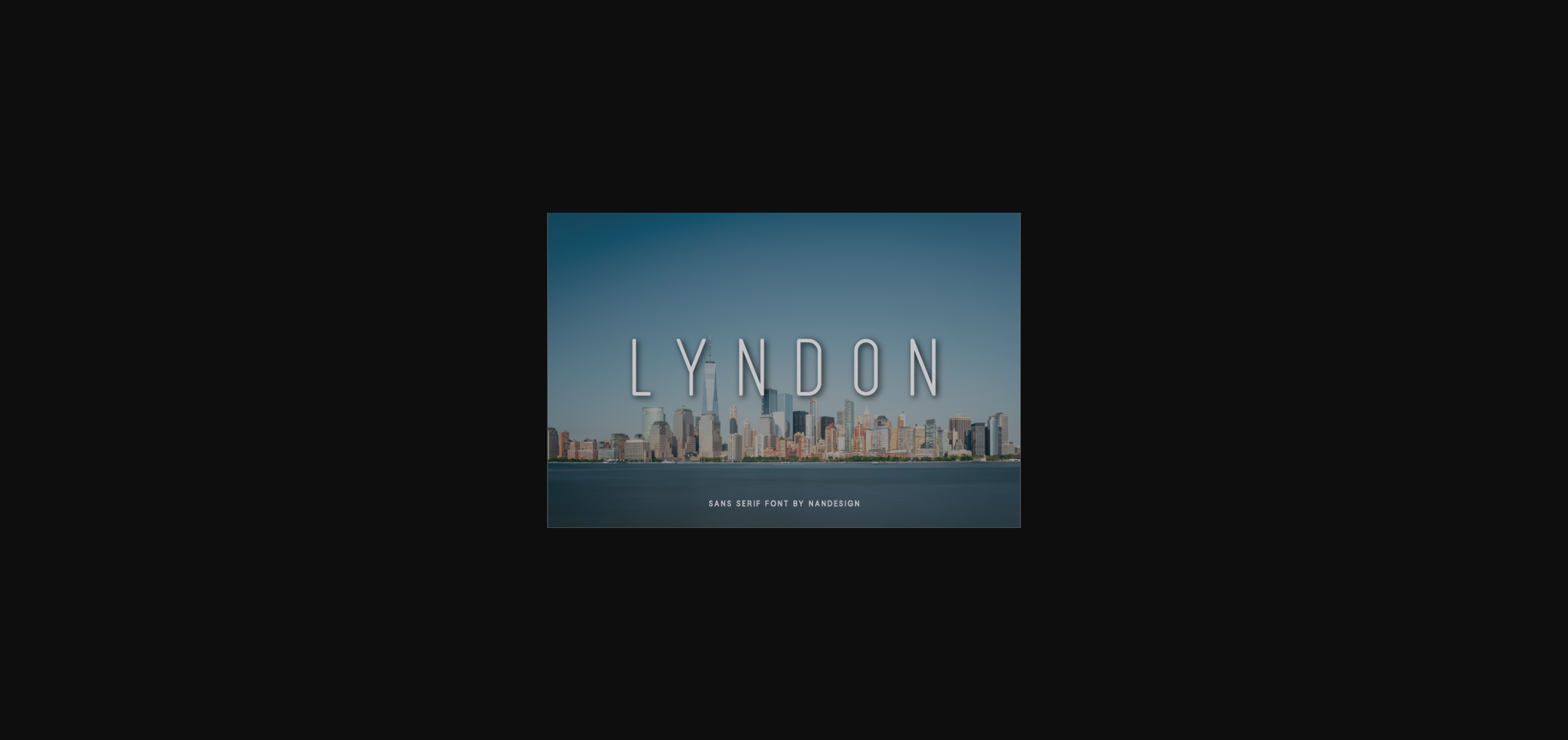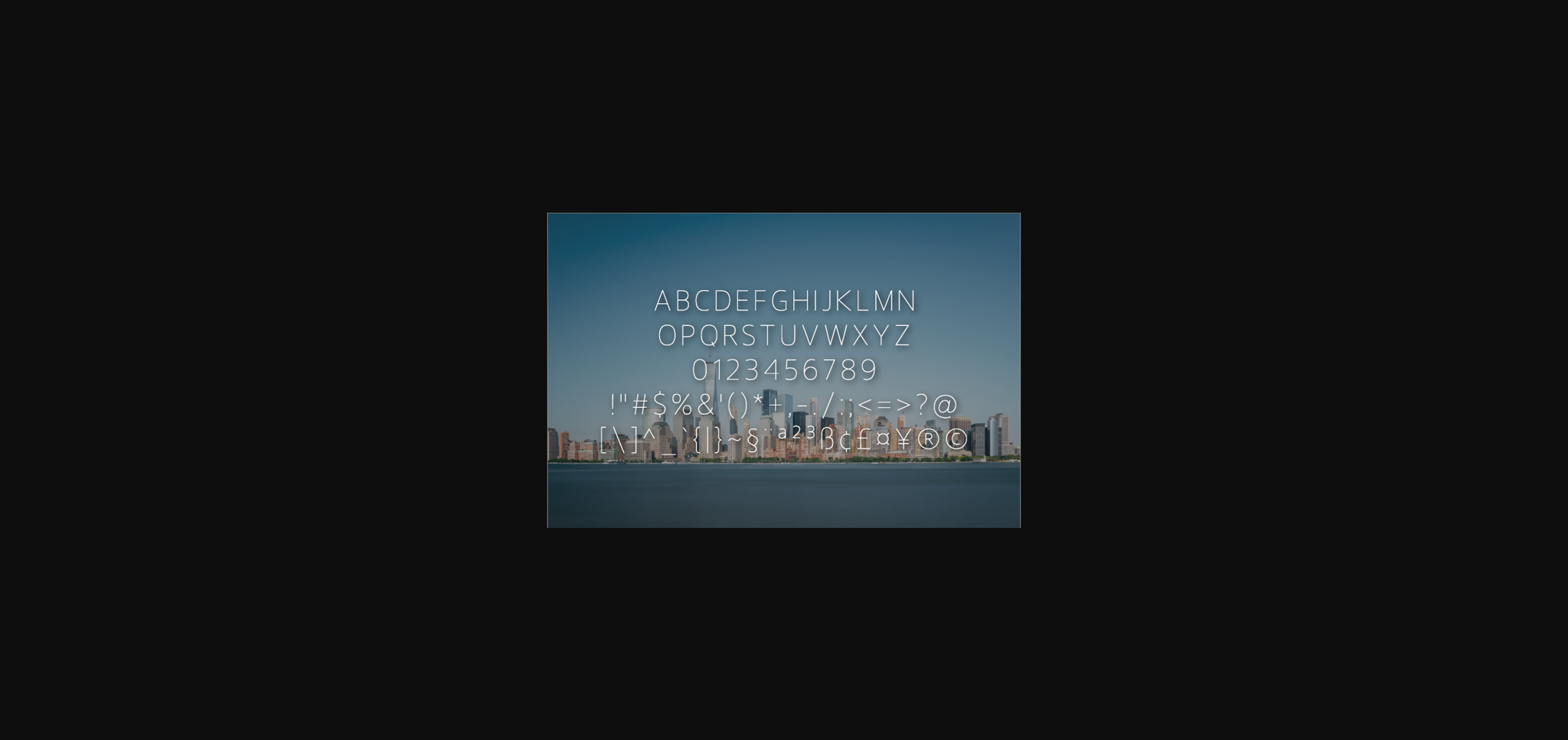
About Lyndon Font
Lyndon is a minimal and neat sans serif font. It can easily be matched to an incredibly large set of projects, so add it to your creative ideas and notice how it makes them stand out!